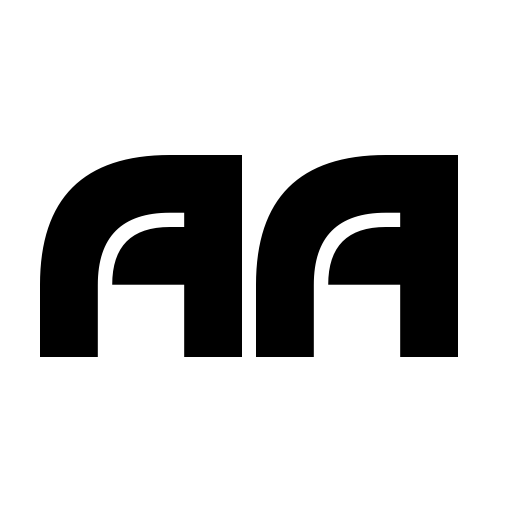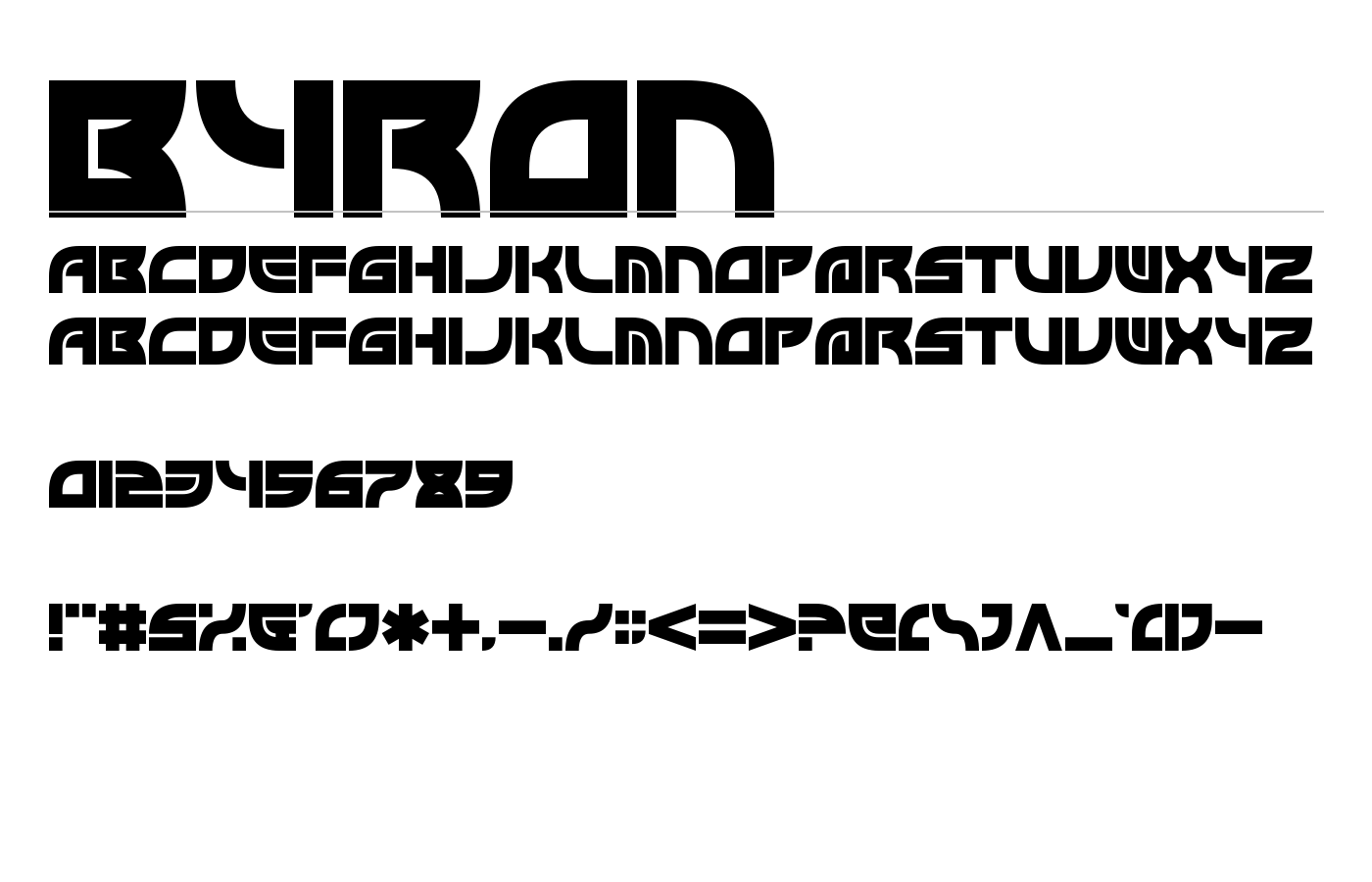
Byron is a bold, highly stylized sans serif font with a futuristic and geometric feel, featuring strong, blocky letterforms and a tight, compact structure. Its unique, sharp angles and connected shapes create a distinctive, modern vibe that works well for impactful headlines, logos, and branding projects aiming for a cutting-edge or sci-fi aesthetic. This font stands out best in display settings where its dramatic personality can shine without losing legibility.
Byron Font
About Byron Font
| Font family | Byron Font |
| Designer | Andrew McCluskey |